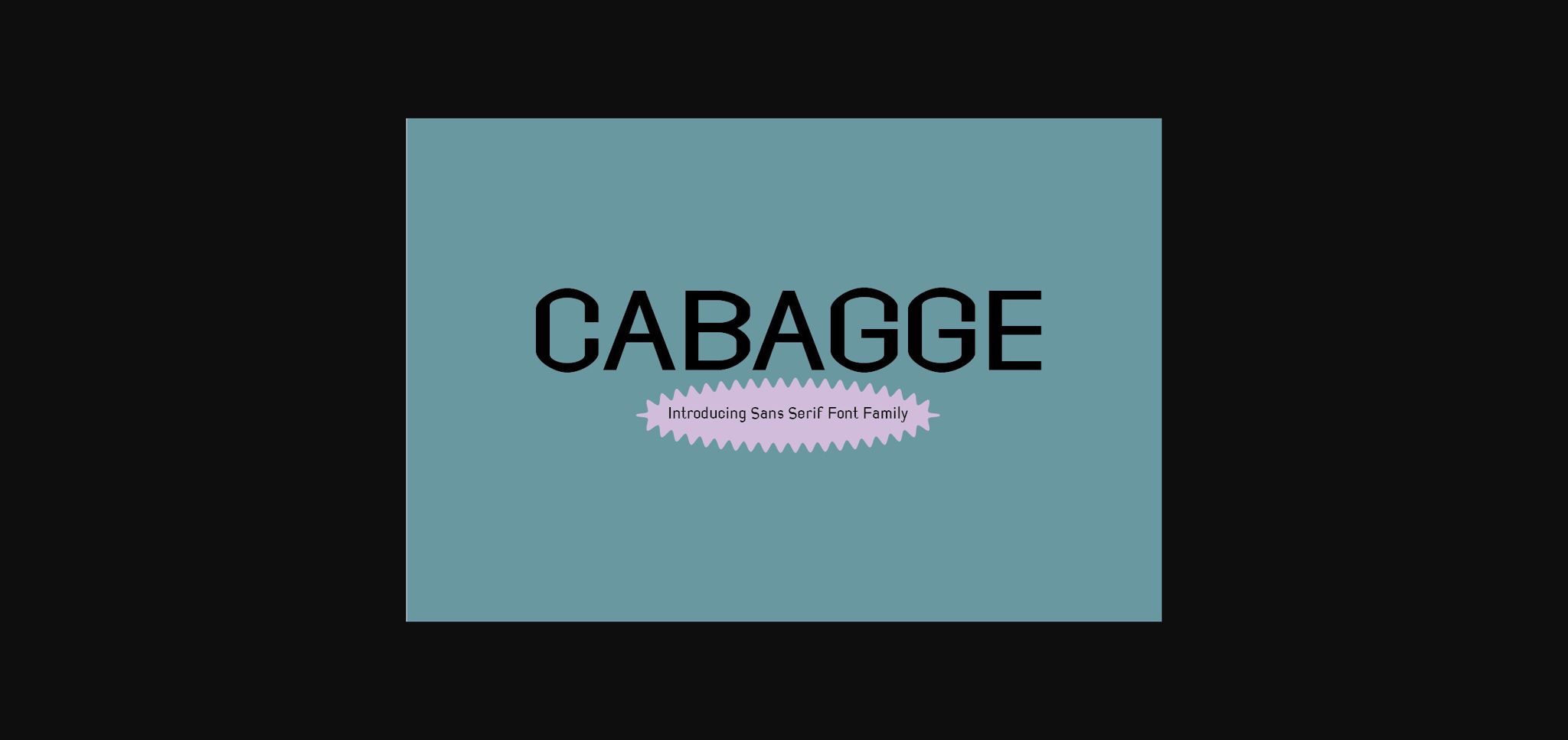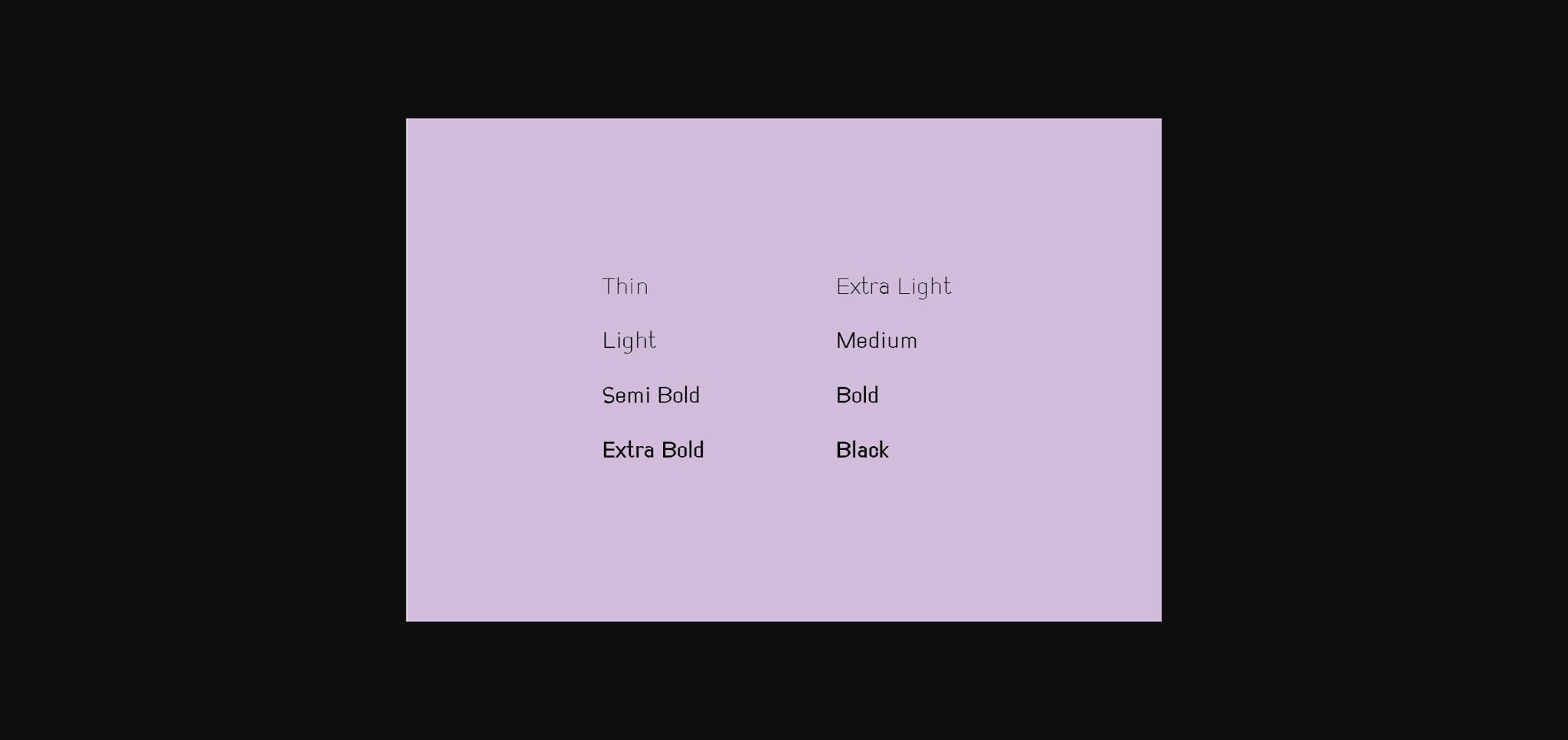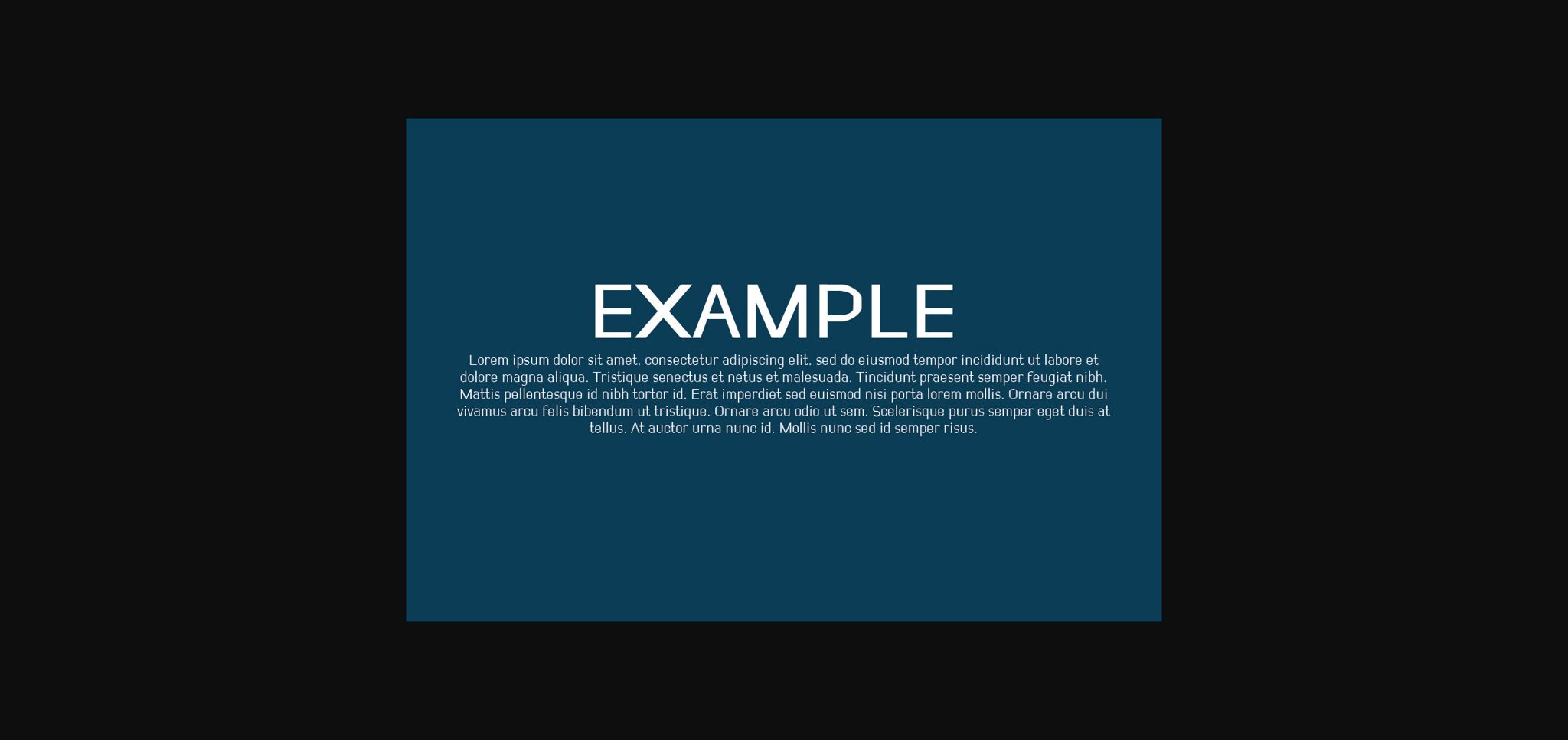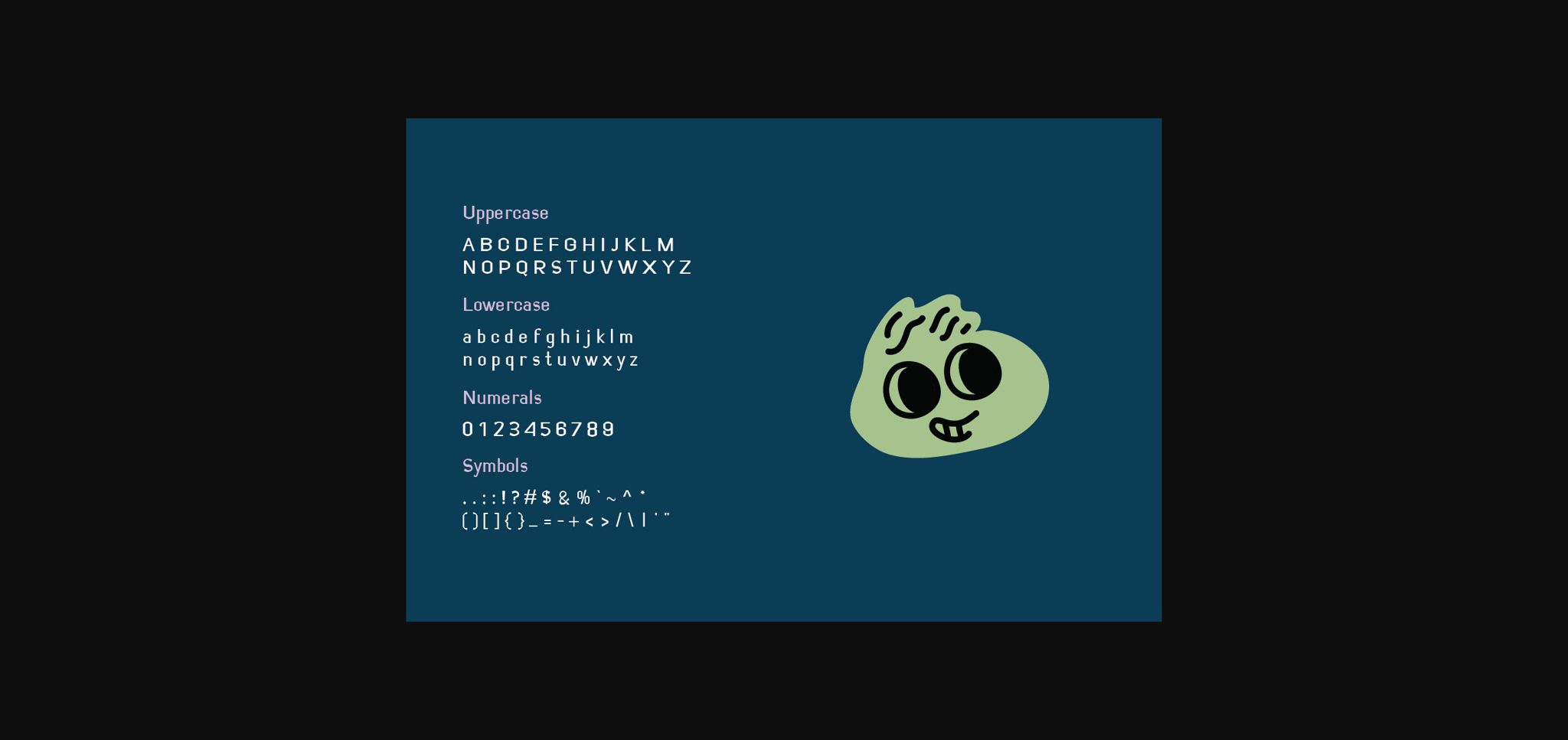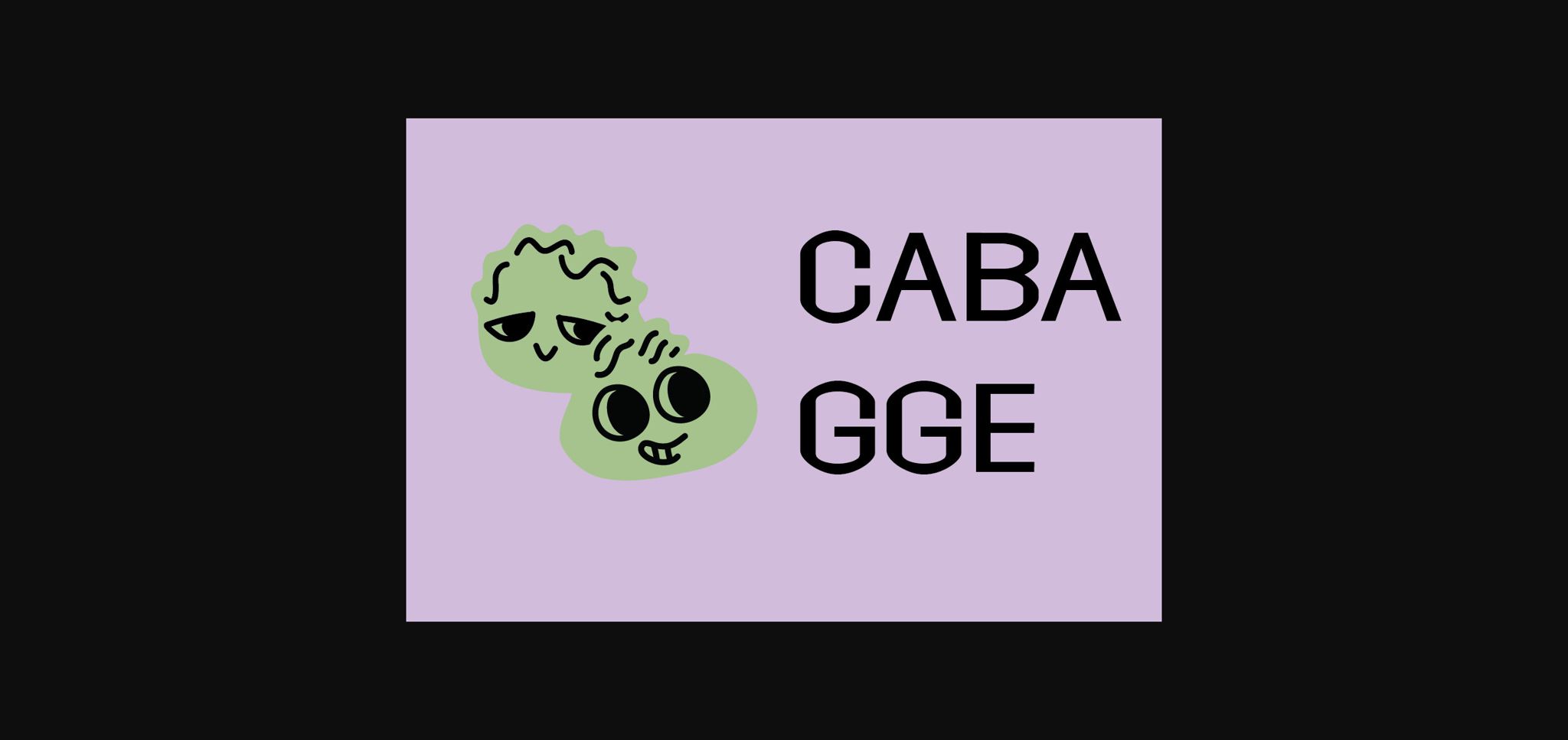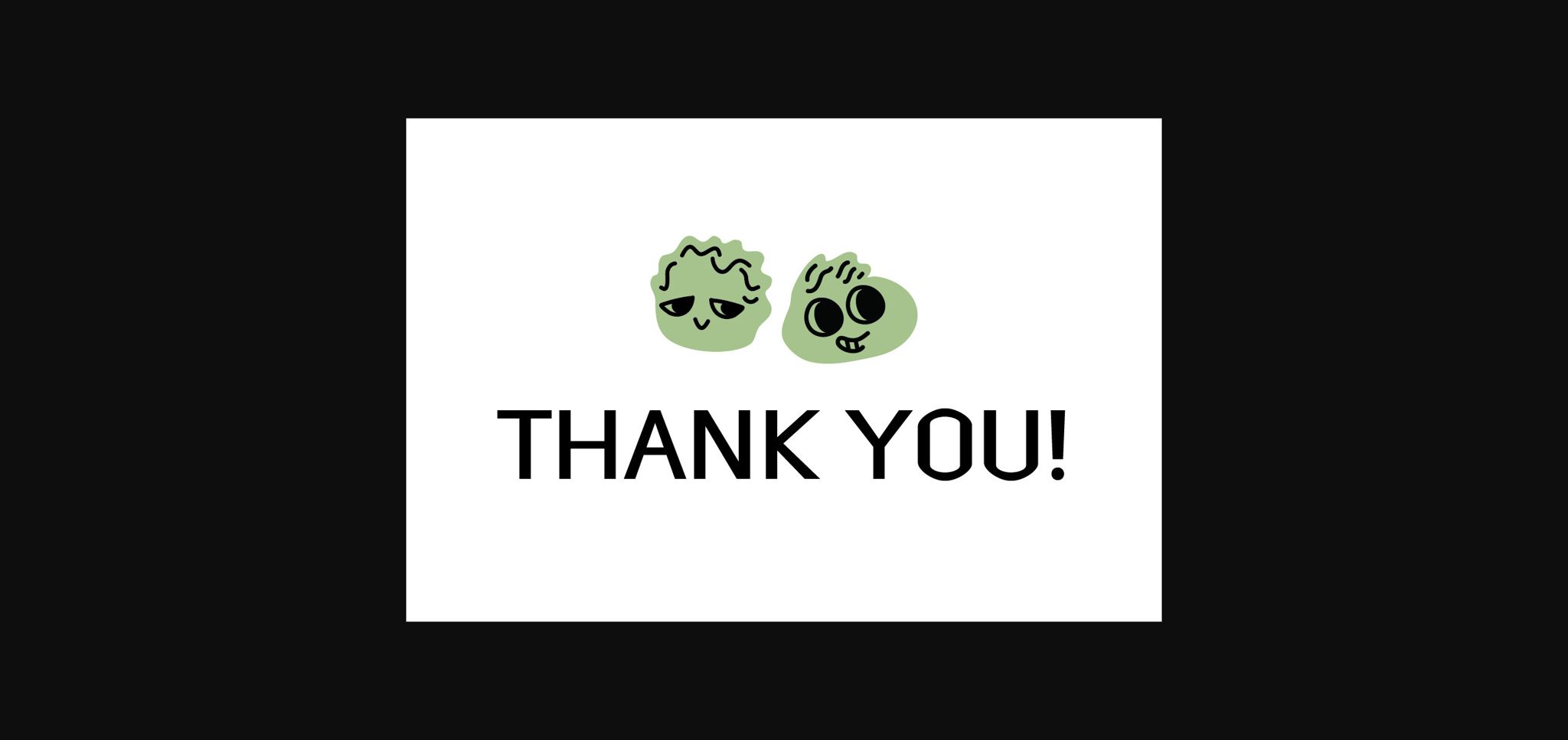
Introducing Cabagge – Sans Serif. Cabagge is a simple sans serif font, that can be used as a display for headings, logos, branding, magazines, product packaging, and invitations.